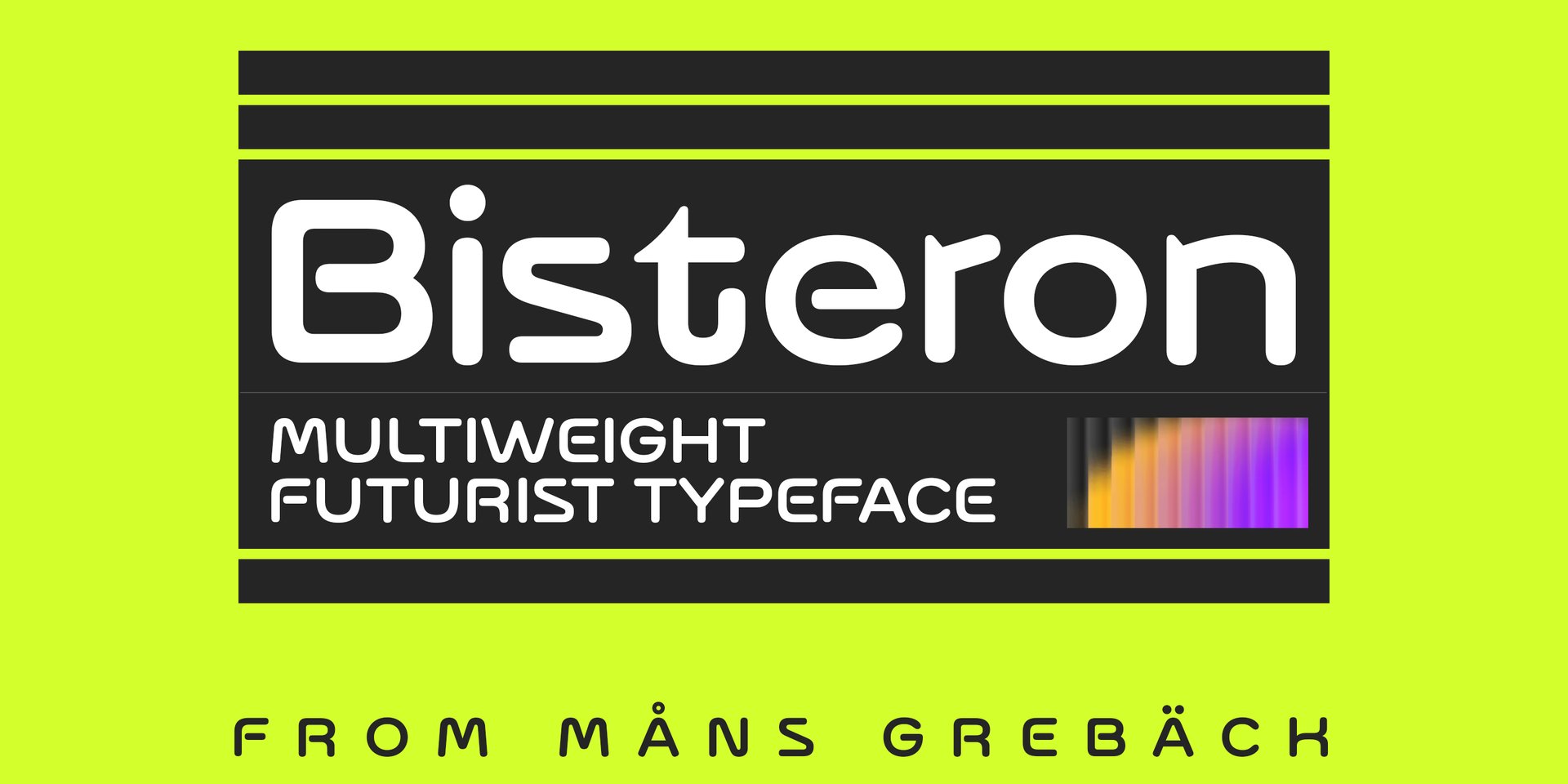
Bisteron – Geometric Techno Font
Bisteron – Geometric Techno Font is a distinctive and expressive font crafted to bring personality, structure, and creative energy into your projects. Bisteron is a clean futurist typeface with a rounded, technical feel and a calm confidence in its shapes.
Built around soft corners and controlled geometry, it balances friendliness with precision. The letterforms feel engineered rather than drawn, giving text a sense of structure and motion without becoming cold. Its multiweight family allows the tone to shift from light and airy to solid and assertive, while the italics introduce a subtle forward lean that feels smooth rather than aggressive.
Bisteron was designed to be flexible and readable, working just as well in short statements as in longer passages. It feels at home in modern interfaces, experimental visuals, and imagined futures where technology is approachable and thoughtfully designed.
The font is built with advanced OpenType functionality and guaranteed top-notch quality, containing stylistic and contextual alternates, ligatures and more automatic and manual features; all to give you full control and customizability.
It has extensive lingual support, covering all Latin-based languages, from North Europa to South Africa, from America to South-East Asia. It contains all characters and symbols you’ll ever need, including all punctuation and numbers.
Bisteron is a personal exploration of soft futurism, focusing on clarity, rhythm, and balance. It avoids sharp edges in favor of smooth transitions. The goal was to create a typeface that feels reliably human, even when placed in highly technical settings.